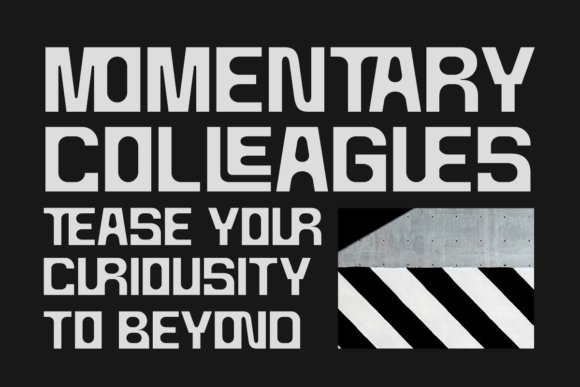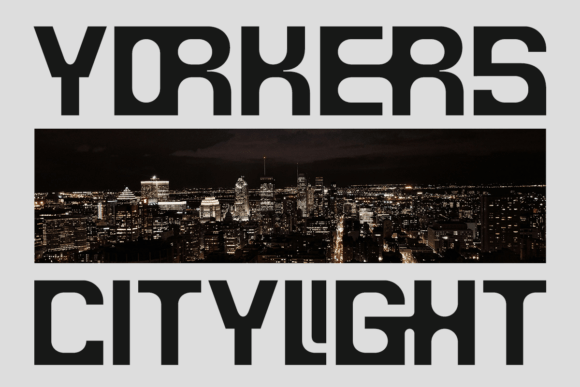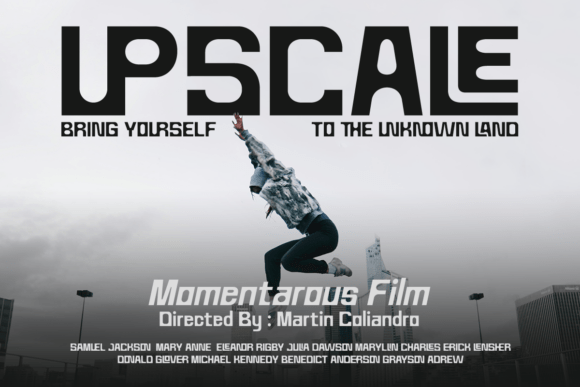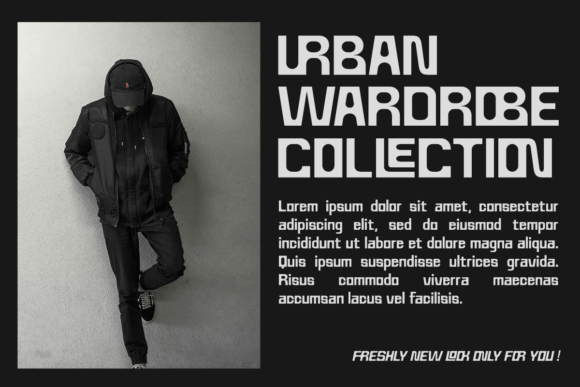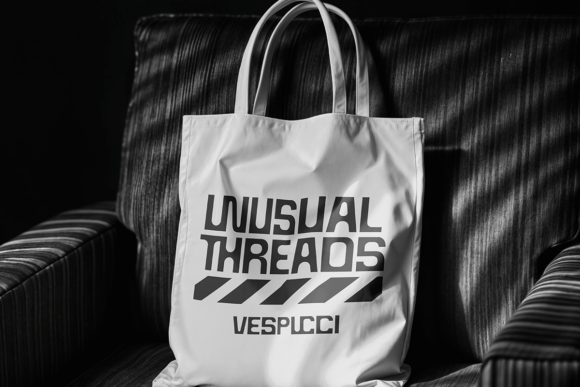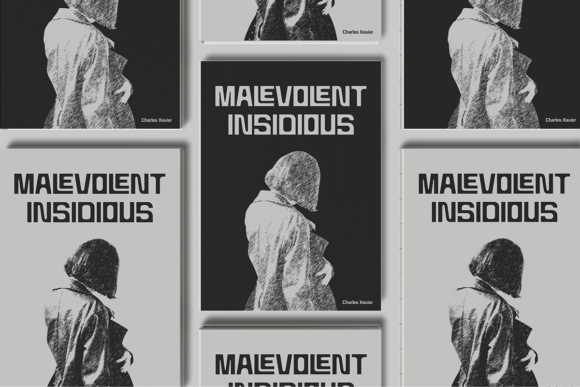
Introduction to Nerlios Font
Have you ever found yourself stuck on a design project, struggling to find the perfect font that captures the essence of your creative vision? You’re browsing through a sea of typography options, and nothing seems to fit the bill. That’s where the Nerlios Font comes in – a game-changing, ultra-modern display typeface that’s about to revolutionize your design workflow.
With its sleek, geometric architecture and ingenious ligatures, the Nerlios Font is the ultimate design resource for any creative project. Whether you’re working on a high-performance automotive marketing campaign or designing the next big app icon, this font is sure to elevate your work to new heights. Its clean lines and wide stance give it an air of luxury and speed, making it the perfect choice for logos, branding, and posters.
What sets the Nerlios Font apart from other fonts is its ability to function as a logo right out of the box. Its unique design and high-quality aesthetic make it a valuable asset for any designer, and with a transparent background, you can easily customize it to fit your project’s needs. So why settle for a generic font when you can take your design to the next level with the Nerlios Font?
Key Features of Nerlios Font
- High-quality design resource ideal for creative projects, including logos, branding, and graphics.
- Unique, modern design with a transparent background, allowing for easy customization and composition.
- High-resolution design, suitable for use in print and digital applications, including business cards, brochures, and websites.
- Designed to be versatile and adaptable, making it an excellent choice for a wide range of creative projects and design resources.
- Includes a comprehensive character set, covering a range of languages and alphabets, making it a valuable resource for global design projects.
Honest Review: Nerlios Font
I recently stumbled upon the Nerlios Font while searching for a design resource for a creative project. I was impressed by its clean and modern aesthetic, making it a great addition to any design.
- ✨ High quality and crisp typography, perfect for both digital and print use.
- ✨ Comes in a variety of weights and styles, offering a lot of flexibility for creative projects.
- ✨ Transparent background, allowing for easy layering and composition.
- ⚠️ Limited character set, which may not be ideal for projects that require a wide range of characters.
Overall, I was impressed by the Nerlios Font’s design and functionality. While it may not be perfect for every project, it’s a great resource to have in your design arsenal. With a little creativity, you can achieve some amazing results with this high-quality font.
Nerlios Font
Nerlios Font is suitable for a wide range of creative projects, including logos, brochures, business cards, and social media graphics. Its high-quality design and transparent background make it a great choice for designers who want to add a touch of elegance to their work.
Tips for Getting the Most Out of Nerlios Font
To get the most out of Nerlios Font, use it in conjunction with other design resources, such as images and graphics. Experiment with different font sizes, colors, and styles to create a unique and eye-catching design. You can also use the font to create custom icons and graphics.